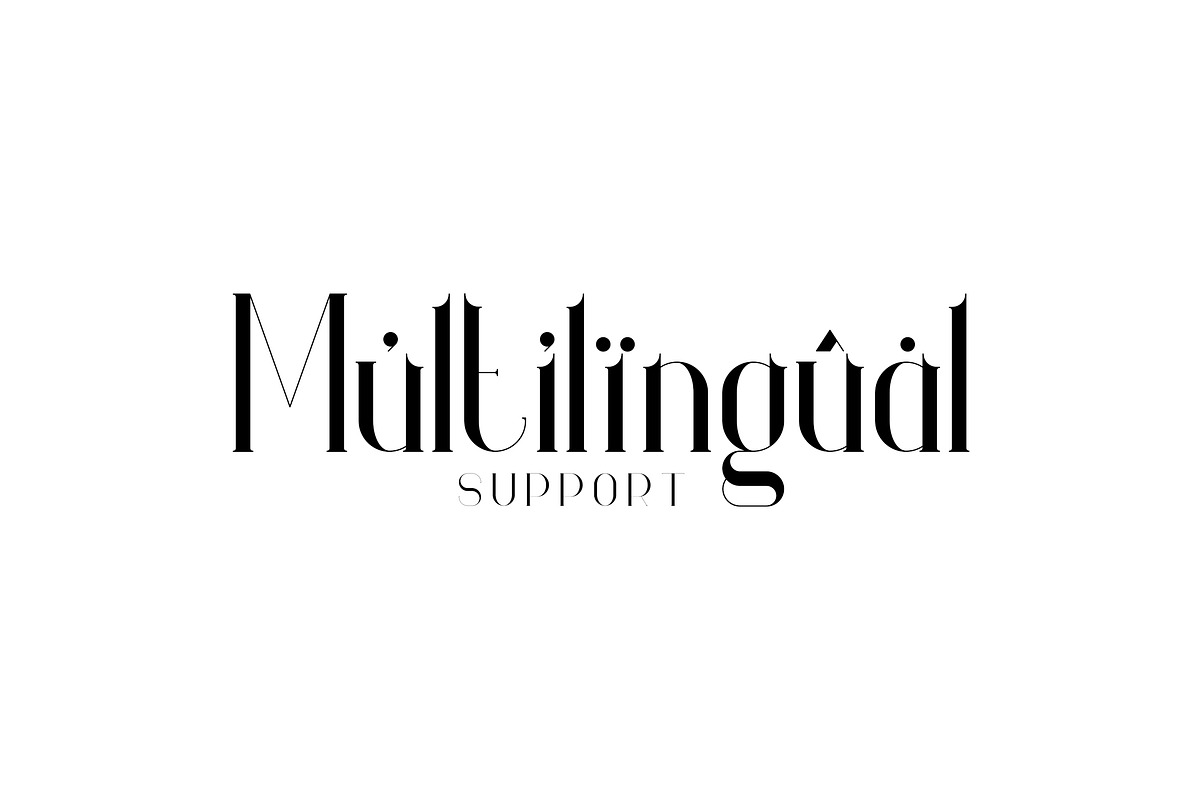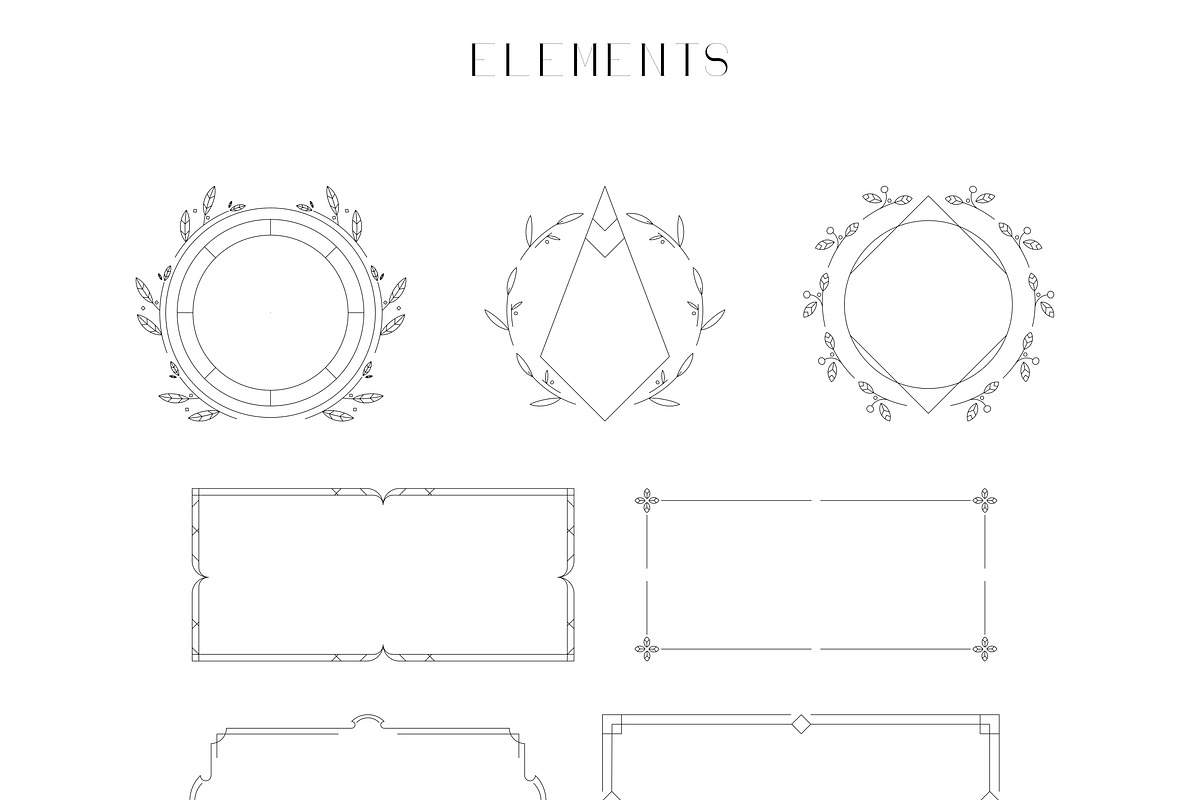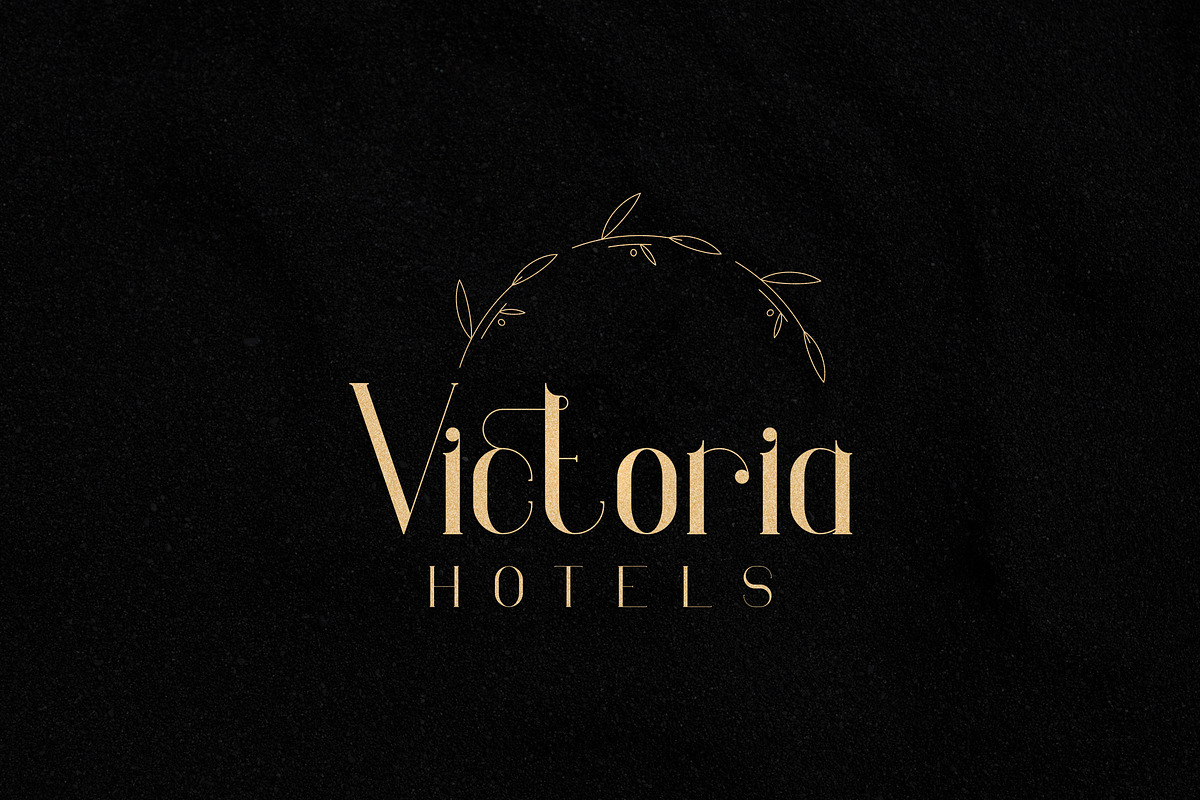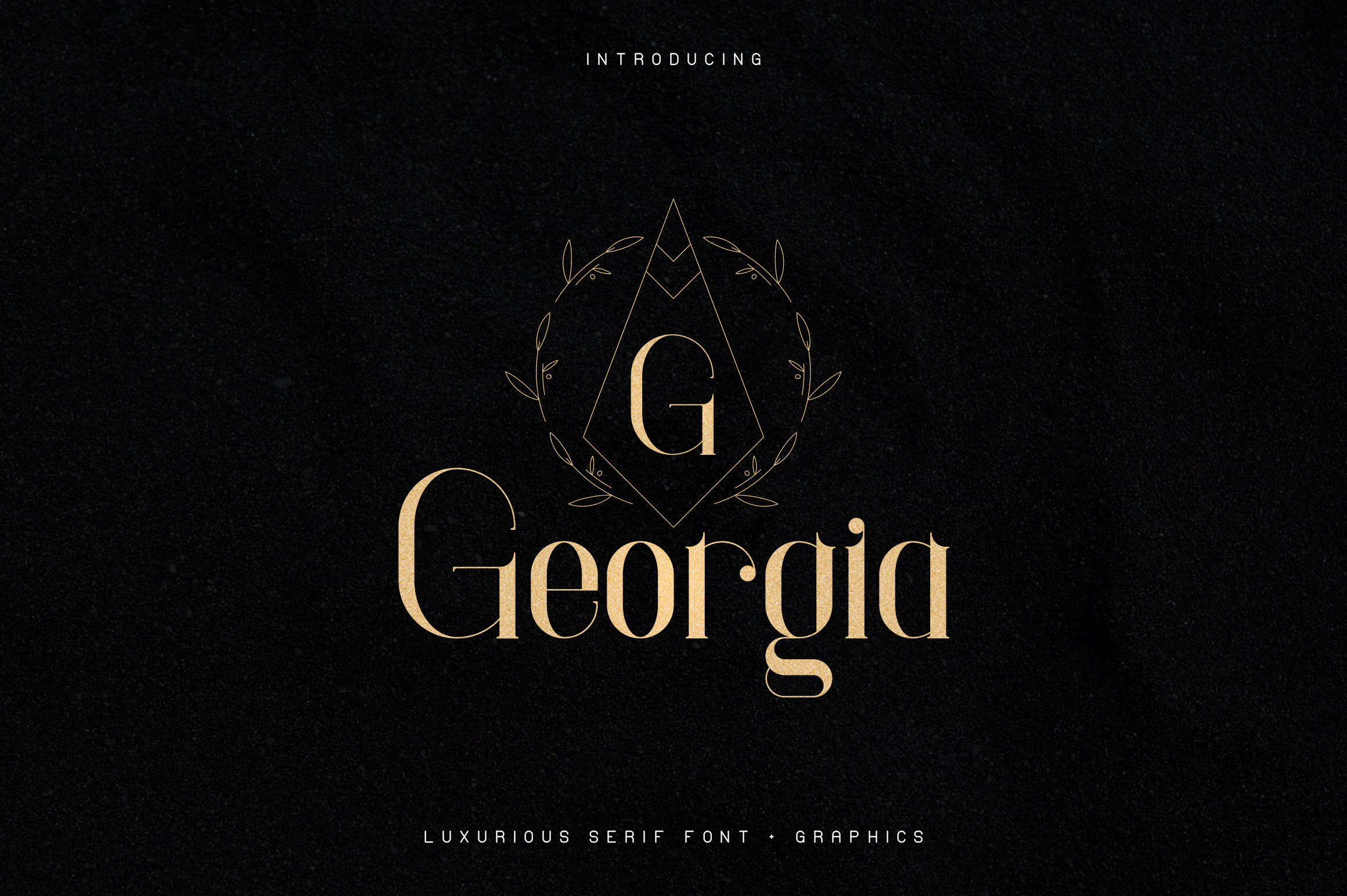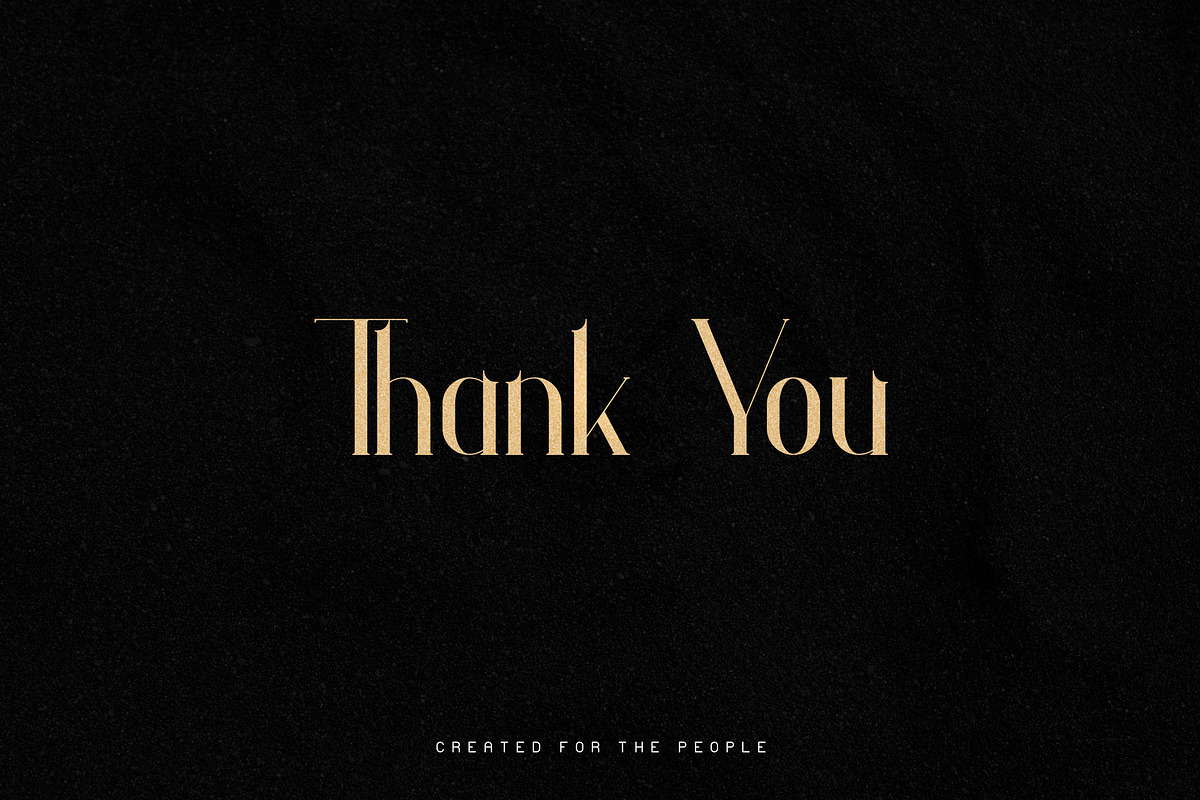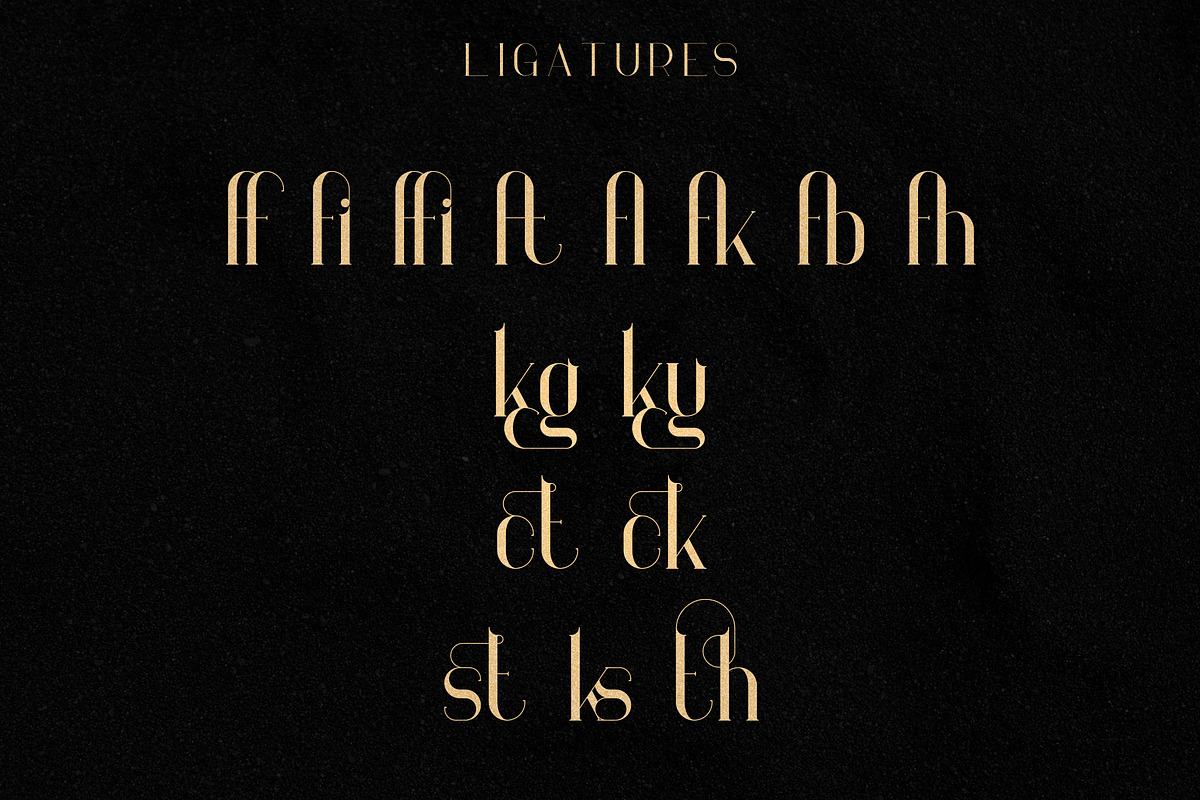
Georgia Luxurious Serif font + Extra
Georgia is clean, fancy serif font with additional vector elements and multilingual support. It's a very versatile font that works great in large and small sizes.
Georgia is perfect for branding projects, home-ware designs, product packaging, magazine headers - or simply as a stylish text overlay to any background image.